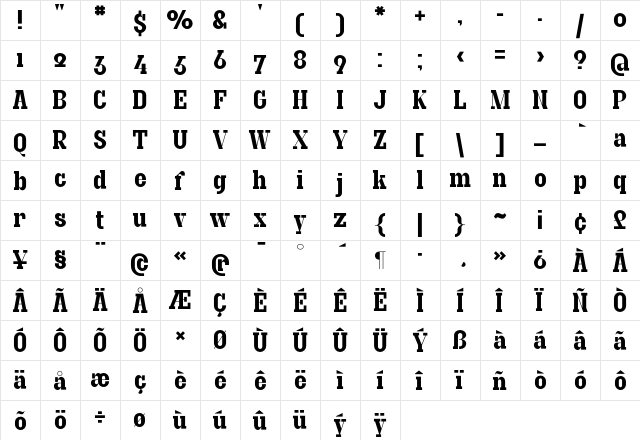
Granite Alternate
Design Context for Granite Typeface
Granite is a composed and adaptable typeface that performs quietly and consistently across a wide range of design contexts.